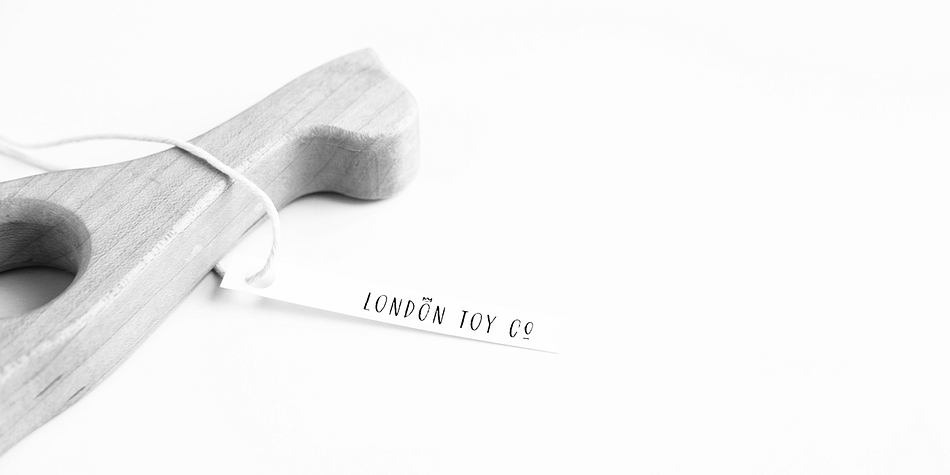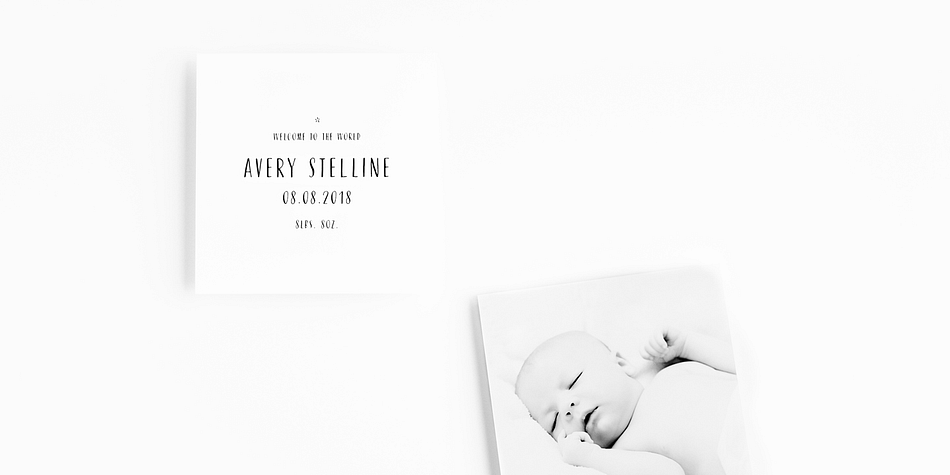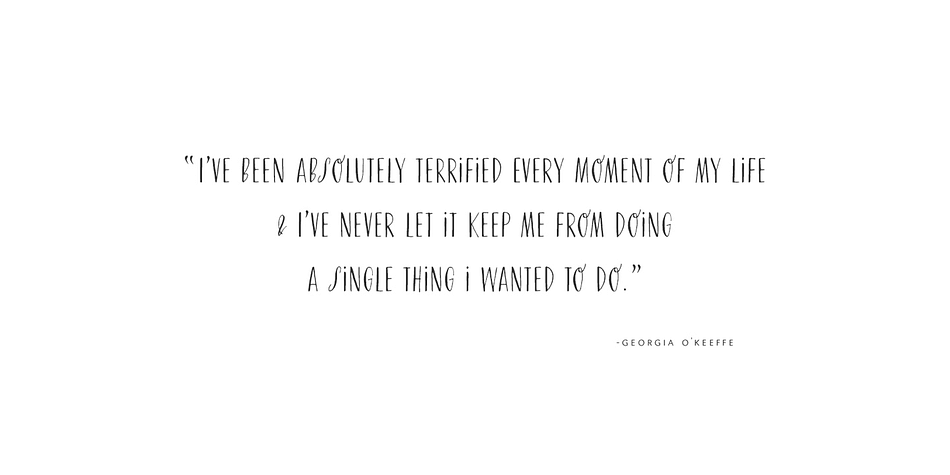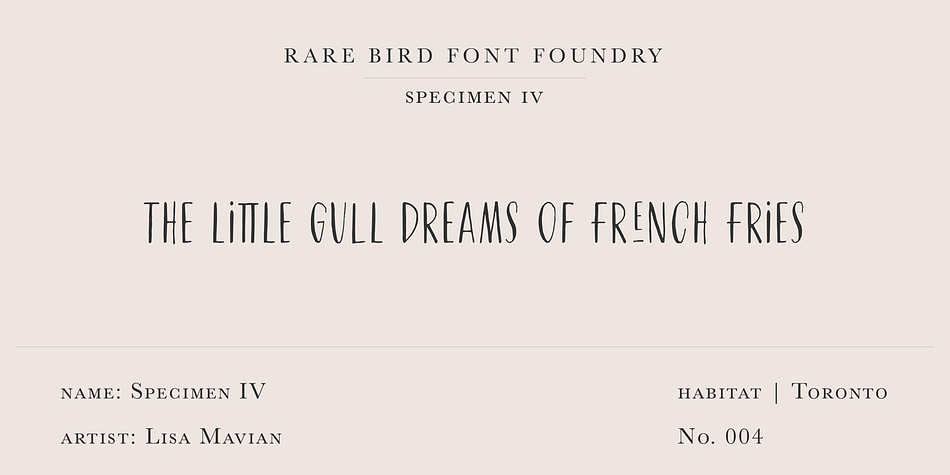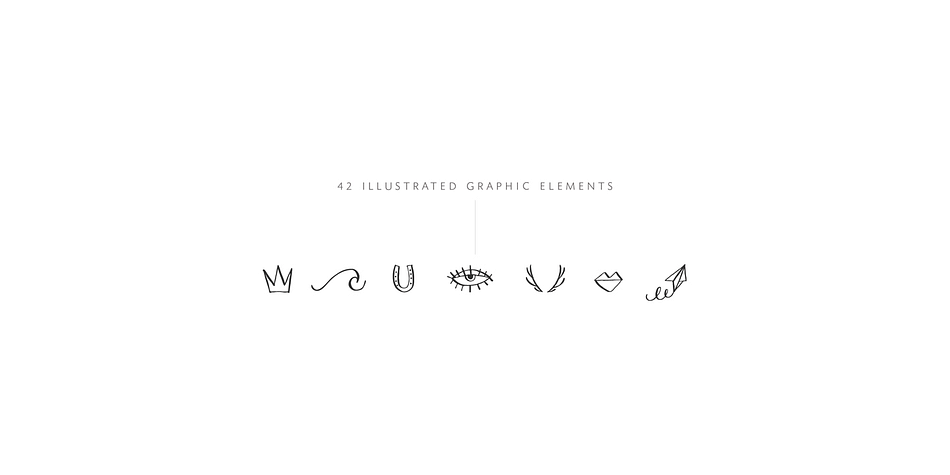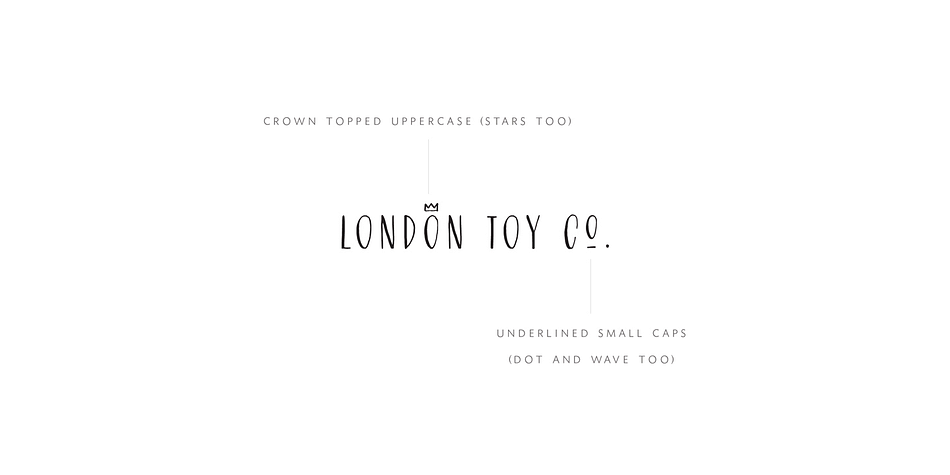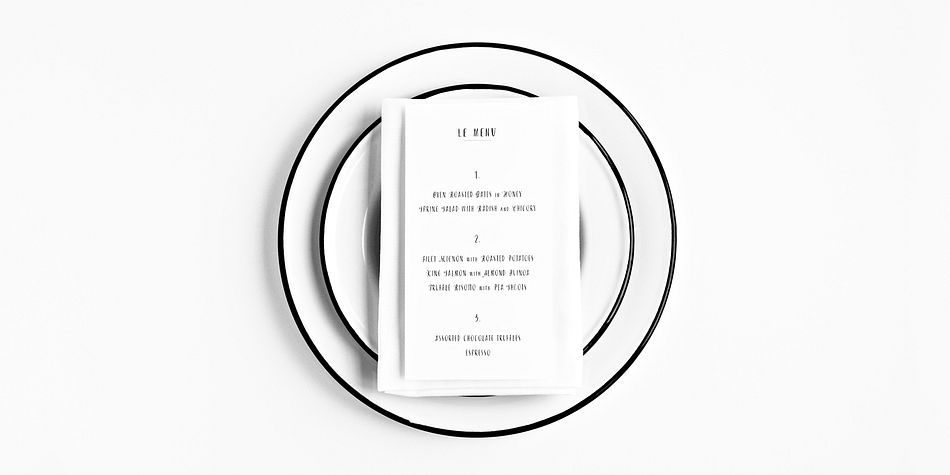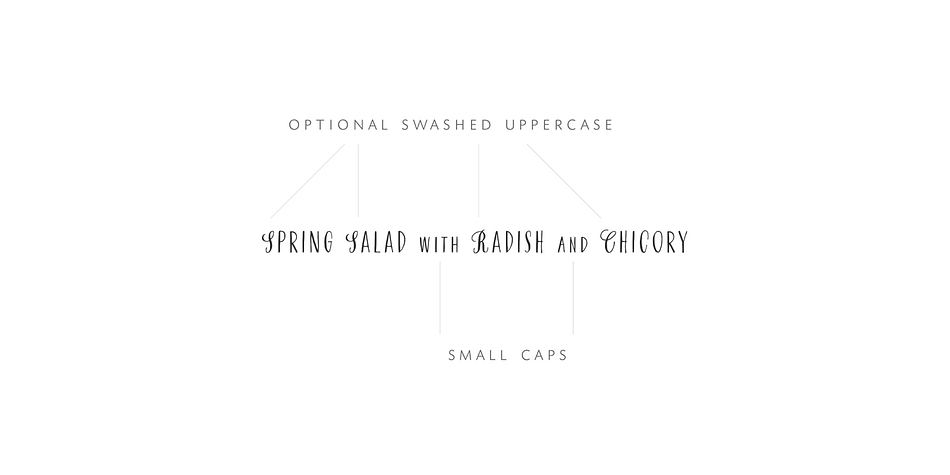
Rare Bird Specimen IV is a hand display font published by Rare Bird Font Foundry.
This unassuming sans serif, lettered by Toronto based artist Lisa Mavian of Post Calligraphy, is loaded with robust and charming features and illustrations.
Specimen IV is a clean, hand-lettered sans with a quirky personality that does not take itself too seriously. These humble and winsome characters are sure to be a winning addition to your flock of fonts!
Opentype programming, formal title & preposition word art, Roman numerals, old-style numerals, realistic double-letter ligatures, complete set of swashed uppercase alternates, select swashed lowercase alternates, complete set of swashed numerals, select swooping desecender alternates, 7 complete sets of alternate uppercase letters, 52 graphic iconography alternates.
Wedding menus, signage, logo design, chocolate packaging, childrenís literature, mobile apps.